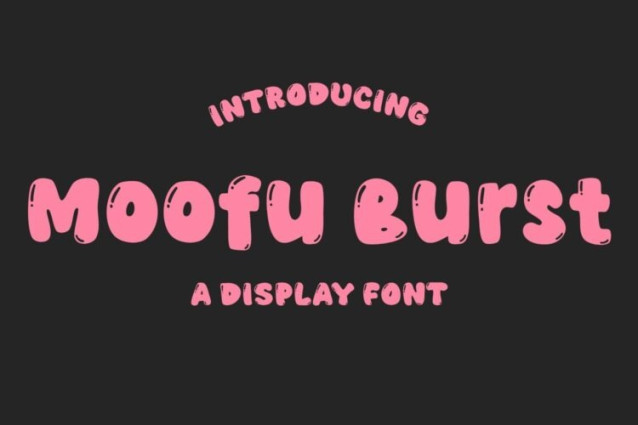
Moofu Burst Font
Moofu Burst Font is a chunky, comic, and cartoon display font. With its neat and joyful personality, this font will enhance any project you wish to create!